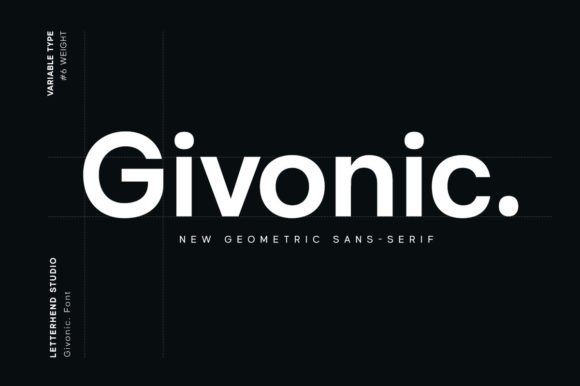
You’re sitting at your desk, staring at a blank canvas, and suddenly an idea strikes. The words start flowing, and your design begins to take shape. But something’s missing – the right font to bring it all together. That’s where the Givonic Font comes in – a minimal and clean sans serif font designed to elevate your creative ideas.
This versatile font is perfect for designers looking to add a touch of sophistication to their projects. Whether you’re working on a logo, brochure, or website, the Givonic Font is sure to make a lasting impression. Its clean lines and simple design make it easy to match with a wide range of styles, from modern to traditional. With the Givonic Font, you’ll be able to take your designs to the next level and make them truly stand out.
Givonic Font Key Features
- Size: 4 weights (Thin, Light, Regular, Bold) and 2 styles (Italic and Regular)
- Resolution: Supports high-resolution displays with clear and crisp text rendering
- Unique Characteristics: Givonic Font features a modern sans-serif design with a clean and minimalist aesthetic, making it ideal for digital interfaces, signage, and corporate branding
- Language Support: Supports over 200 languages, including Latin, Cyrillic, and Greek scripts
- Font Metrics: Designed with precise font metrics for optimal readability and legibility across various screen sizes and devices
Givonic Font Review
I recently had the chance to work with the Givonic font, and I must say it’s a solid addition to any designer’s toolkit. ✨
Here are some of the things I like about Givonic:
- Unique Character Set – Givonic offers a wide range of characters, including Cyrillic and Greek alphabets, making it a great choice for projects that require multilingual support.
- High-Quality Typography – The font’s design is clean and elegant, with a focus on readability that makes it perfect for body text and headings.
- Limited Expressive Power – Givonic is a sans-serif font, which can make it feel a bit generic for projects that require a more expressive or emotive feel.
- No Distinctive Personality – While Givonic is well-designed, it doesn’t have a particularly distinctive personality or style that sets it apart from other fonts.
- Not Ideal for Display Use – Givonic is best suited for body text and headings, but it may not be the best choice for display text or titles.
Overall, I think Givonic is a solid choice for designers who need a high-quality, versatile font that can handle a wide range of projects. It’s not perfect, but it’s definitely worth considering for your next design project.
Givonic Font is perfect for:
1. Modern and elegant typography.
2. Branding and logos.
3. Web design and development.
4. Professional presentations and documents.
Alternatives to Givonic Font
Monserrat is a modern sans-serif font designed by Julieta Ulanovsky. It’s ideal for digital products, websites, and apps where a clean and minimalist look is desired. Montserrat is more geometric and has a more industrial feel compared to Givonic Font, making it suitable for tech and business-related projects.
Open Sans is a clean and highly legible sans-serif font designed by Steve Matteson. It’s suitable for digital products, websites, and documents where readability is crucial. Open Sans has a more rounded feel compared to Givonic Font, making it more approachable and user-friendly. It’s also more versatile and can be used for a wide range of projects.
Inter is a sans-serif font designed by Rasmus Andersson. It’s ideal for digital products, websites, and apps where a clean and modern look is desired. Inter has a more neutral and balanced feel compared to Givonic Font, making it suitable for projects that require a professional and elegant look.
Avenir is a geometric sans-serif font designed by Adrian Frutiger. It’s suitable for projects that require a sleek and sophisticated look, such as luxury brands, fashion, and high-end design. Avenir has a more elegant and refined feel compared to Givonic Font, making it ideal for projects that require a touch of sophistication and glamour.